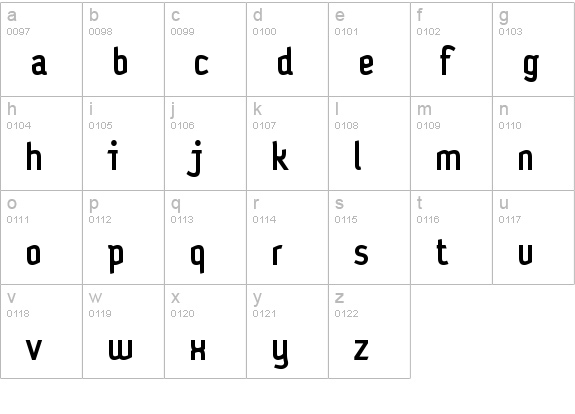
Petrol-Medium is a balanced, medium-weight variant in the Petrol typeface family \xE2\x80\x94 well suited to sub-headlines, navigation, and balanced editorial work.
Petrol-Medium font is a versatile and captivating typeface that effortlessly blends elegance with modernity. Its sleek and slender letterforms exude a sense of sophistication, making it the perfect choice for a wide range of design projects. With its balanced proportions and clean lines, Petrol-Medium font adds a touch of refinement to any text it graces. Whether used for headlines, body text, or branding materials, this font effortlessly captures attention and conveys a sense of professionalism. But what makes Petrol-Medium font even more appealing is that it is freely available to download at FontsMarket.com. This means that you can easily access this stunning typeface without any cost, making it a valuable asset for designers, businesses, and individuals alike. The smooth curves and subtle details of Petrol-Medium font make it a pleasure to read, ensuring optimal legibility across various mediums. From print materials to digital platforms, this font adapts seamlessly to different contexts, ensuring a consistent and visually pleasing experience for readers. Whether you're creating a logo, designing a website, or crafting an eye-catching poster, Petrol-Medium font is the perfect companion to elevate your designs to new heights. Its timeless appeal, combined with its availability as a free download, makes it a must-have resource for anyone seeking to make a lasting impression with their typography choices. So why wait? Head over to FontsMarket.com today and unleash the creative potential of Petrol-Medium font. With its free availability and exceptional design, this typeface is sure to become a favorite among designers and enthusiasts alike.